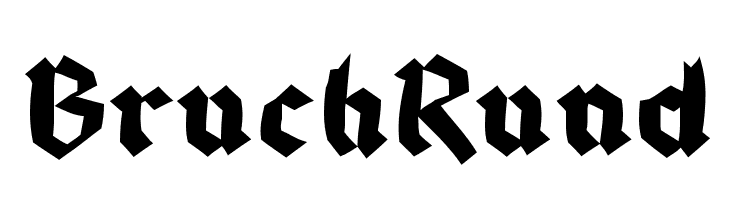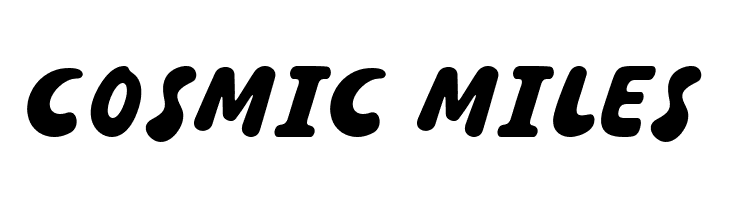
A bold blackletter font with sharp, angular strokes and a Gothic influence.
A bold, modern script font with a dynamic and elegant style.
A bold, italicized font with a dynamic and modern style.
A bold, italicized font with a textured, sketch-like appearance.
A modern, elongated font with narrow characters and a sleek design.
A decorative font with charming symbols like stars and hearts in bold outlines.
A bold, geometric font with outlined characters and a modern flair.
A grunge-style font with elegant swashes and an inline design.
A bold, playful font with rounded edges and a cohesive, friendly appearance.